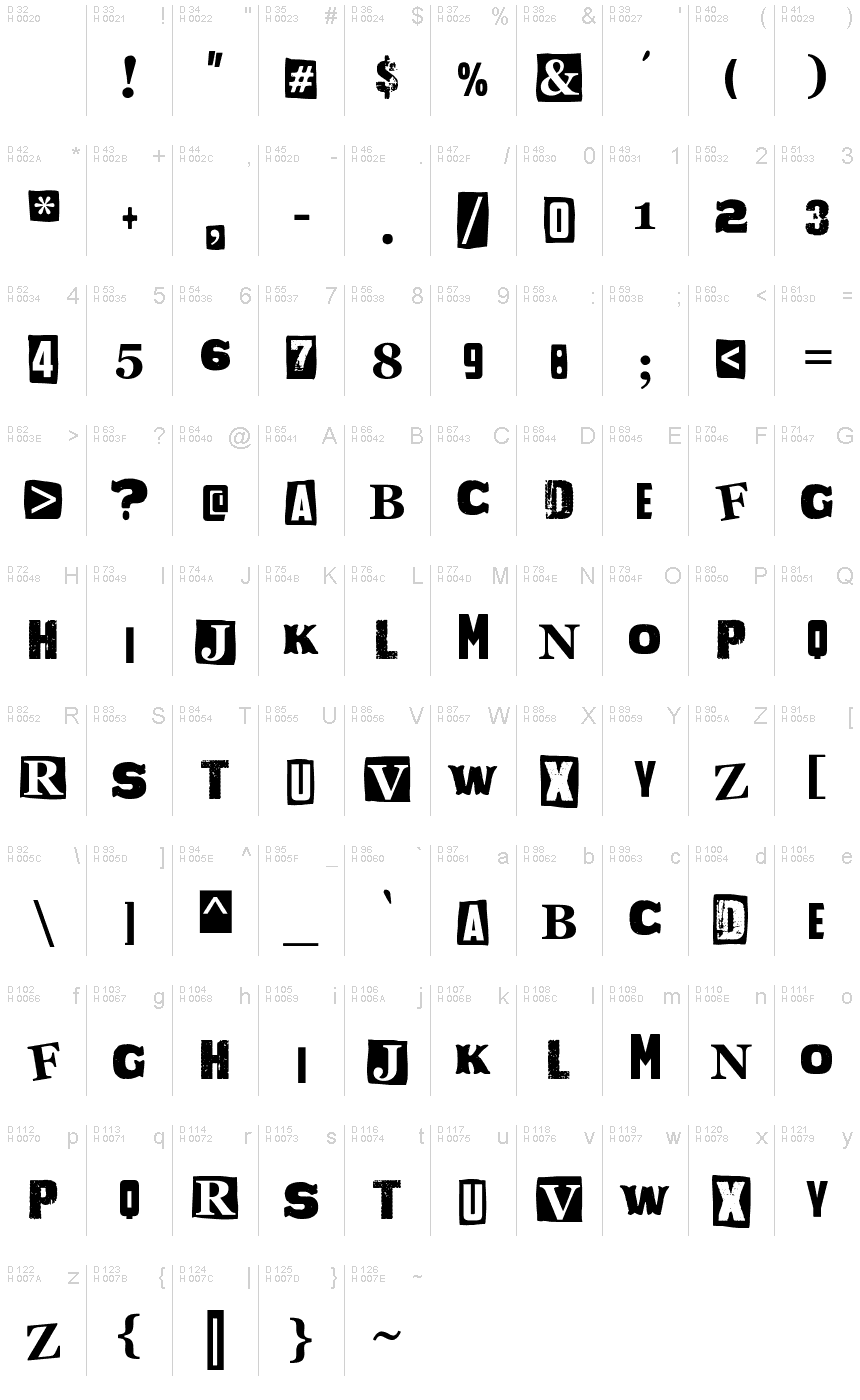
Drunk & Proud
Drunk & Proud, a bold and distorted display font by Woodcutter, exudes an edgy and rebellious vibe.
With its rugged appearance, this font is perfect for music festivals posters, album covers, and rock band logos. Its unique style will also make your tattoo designs stand out, giving them a distinctive and daring look. Additionally, Drunk & Proud adds a touch of grunge to skateboarding brands' merchandise or streetwear clothing lines.
Unleash your creativity with this eye-catching font that demands attention and makes a statement in any project.